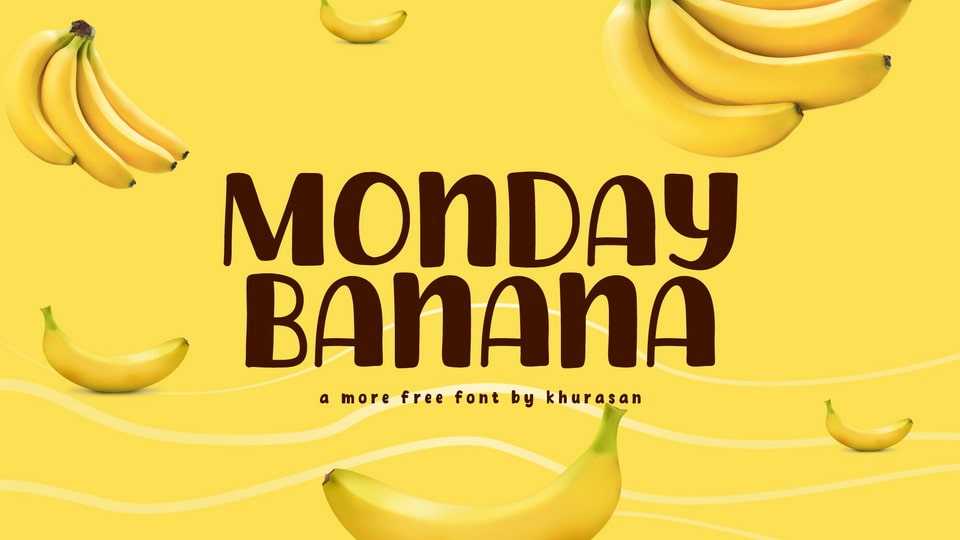
Download Monday Banana font, a playful and irresistibly cute hand-drawn typeface that’s all about spreading joy and whimsy. Monday Banana font is a delightful choice for designs that need a touch of playfulness and a sprinkle of adorable character.